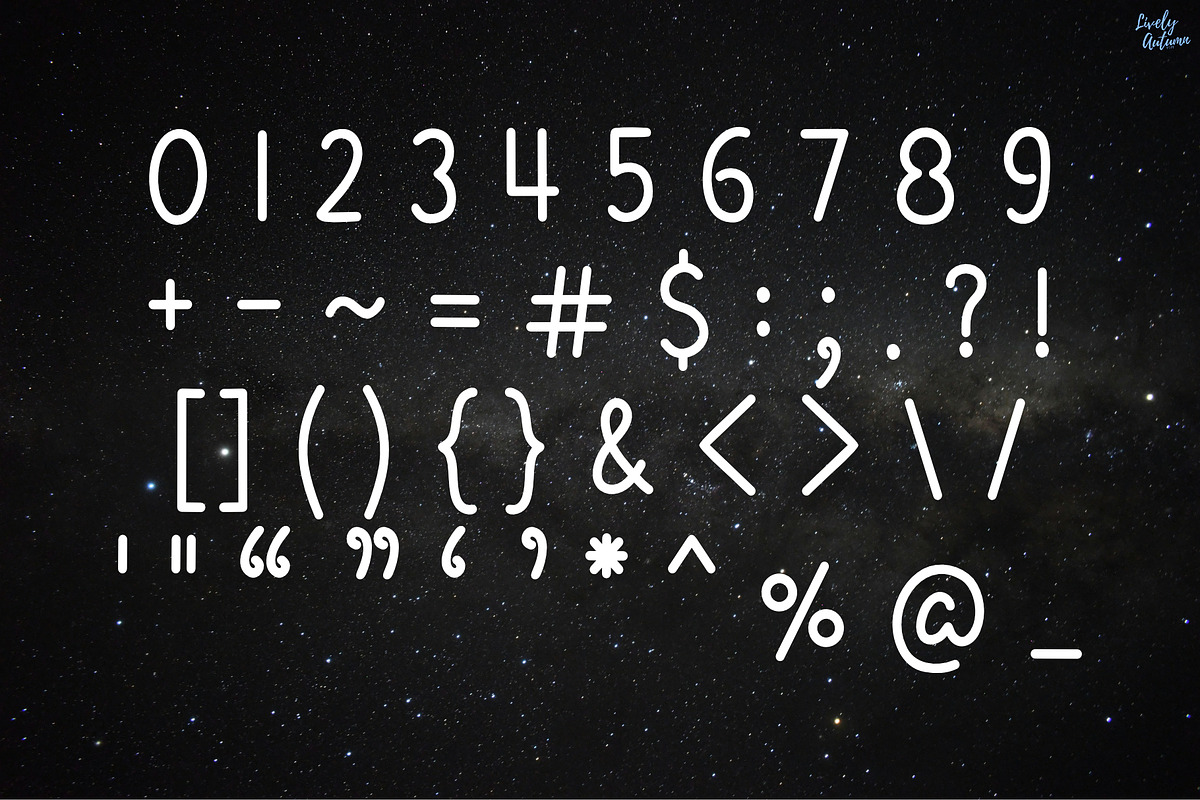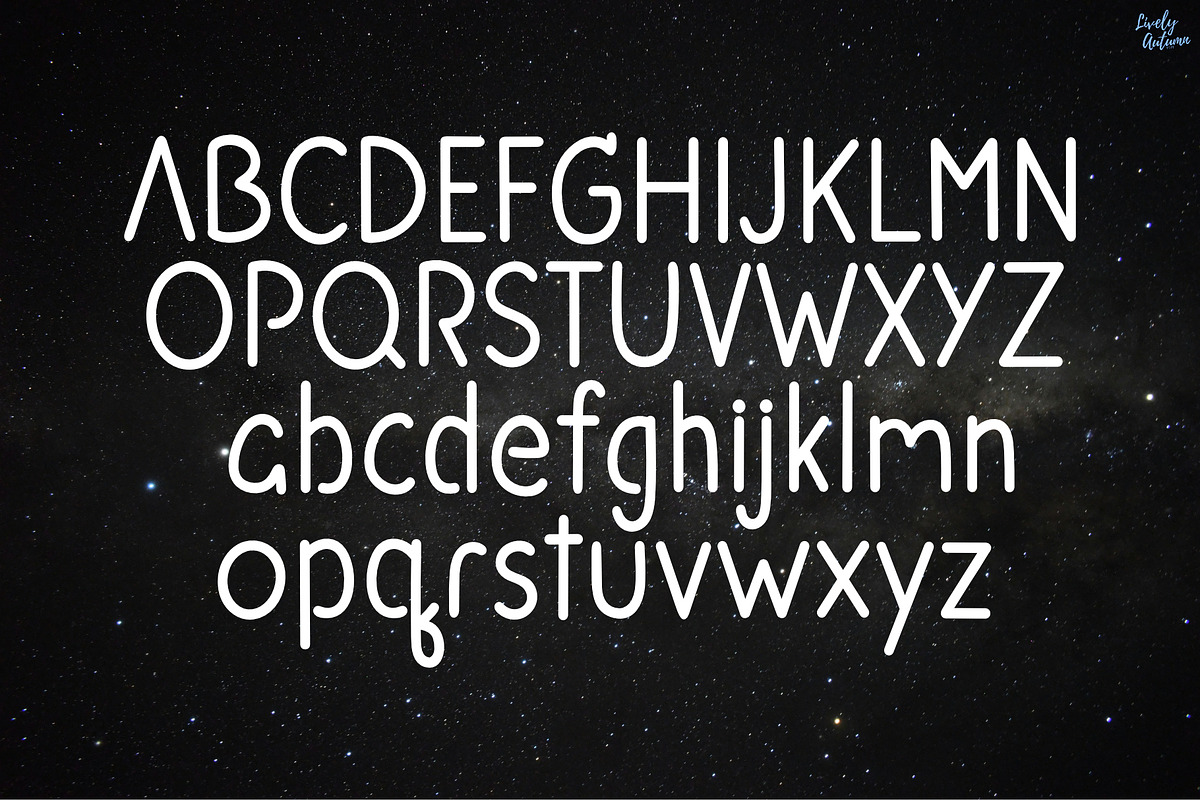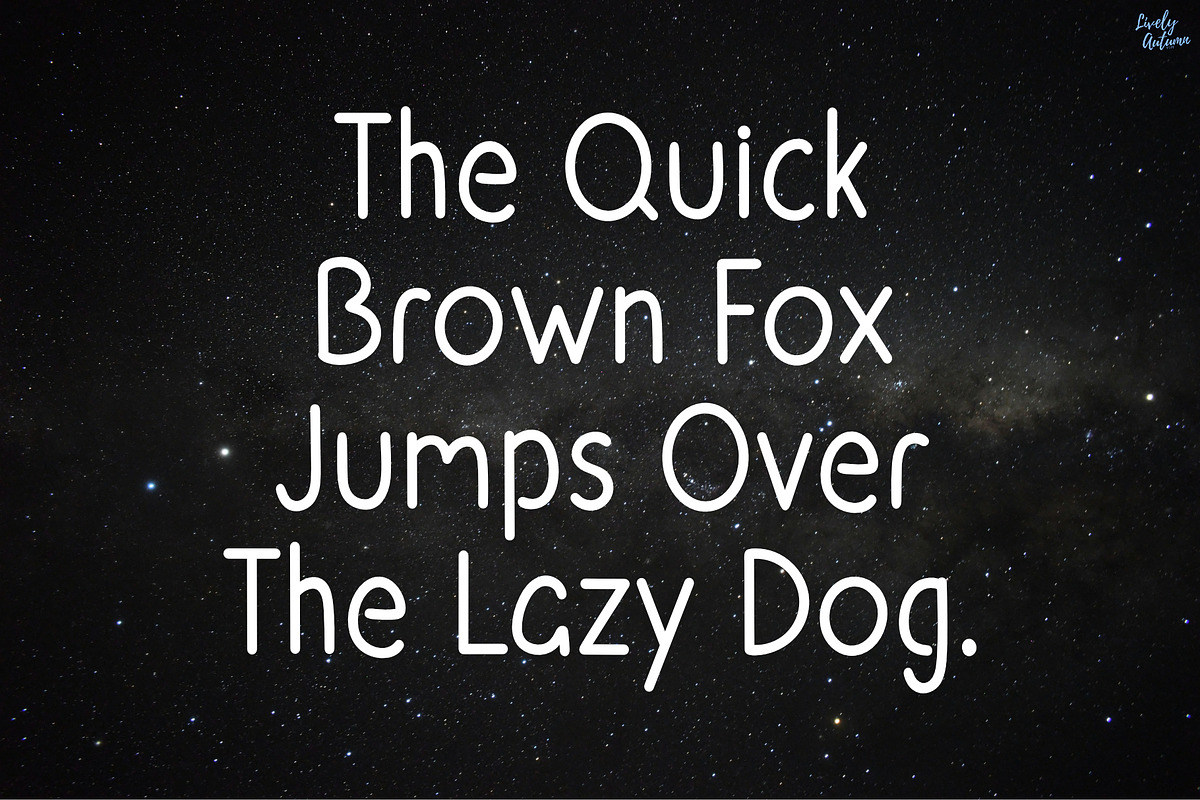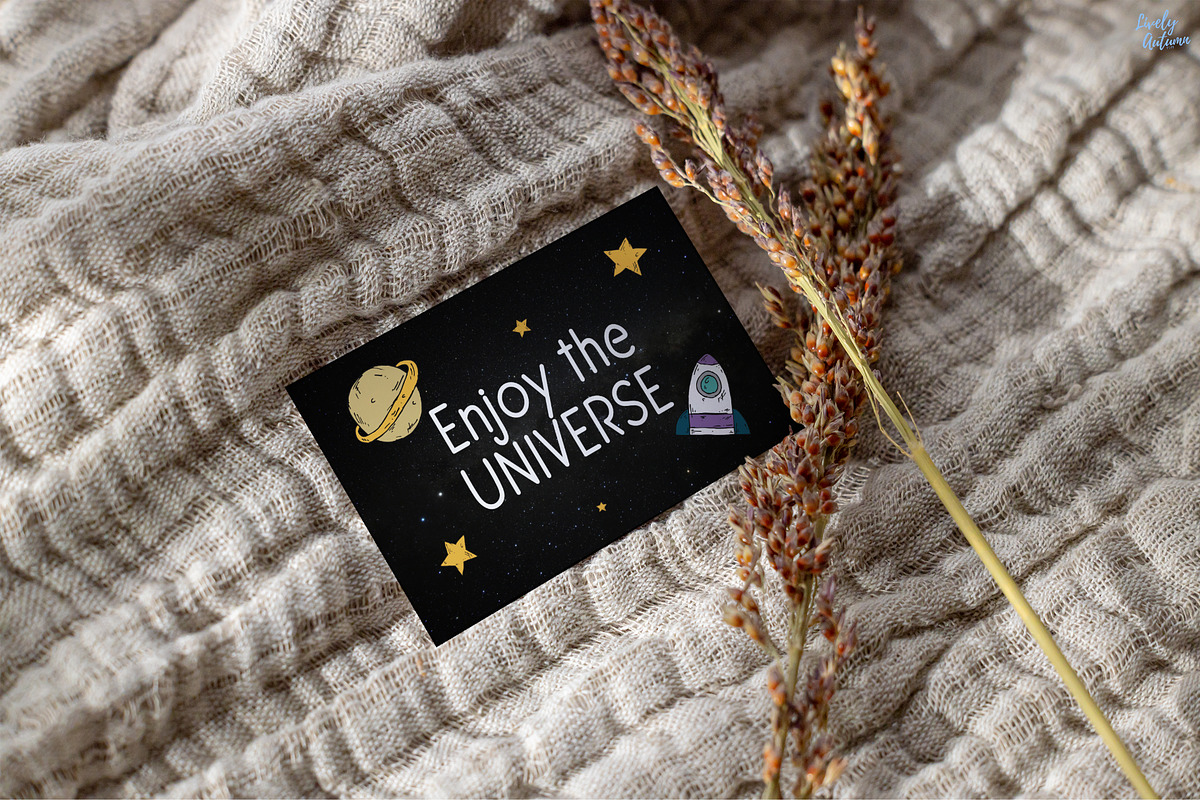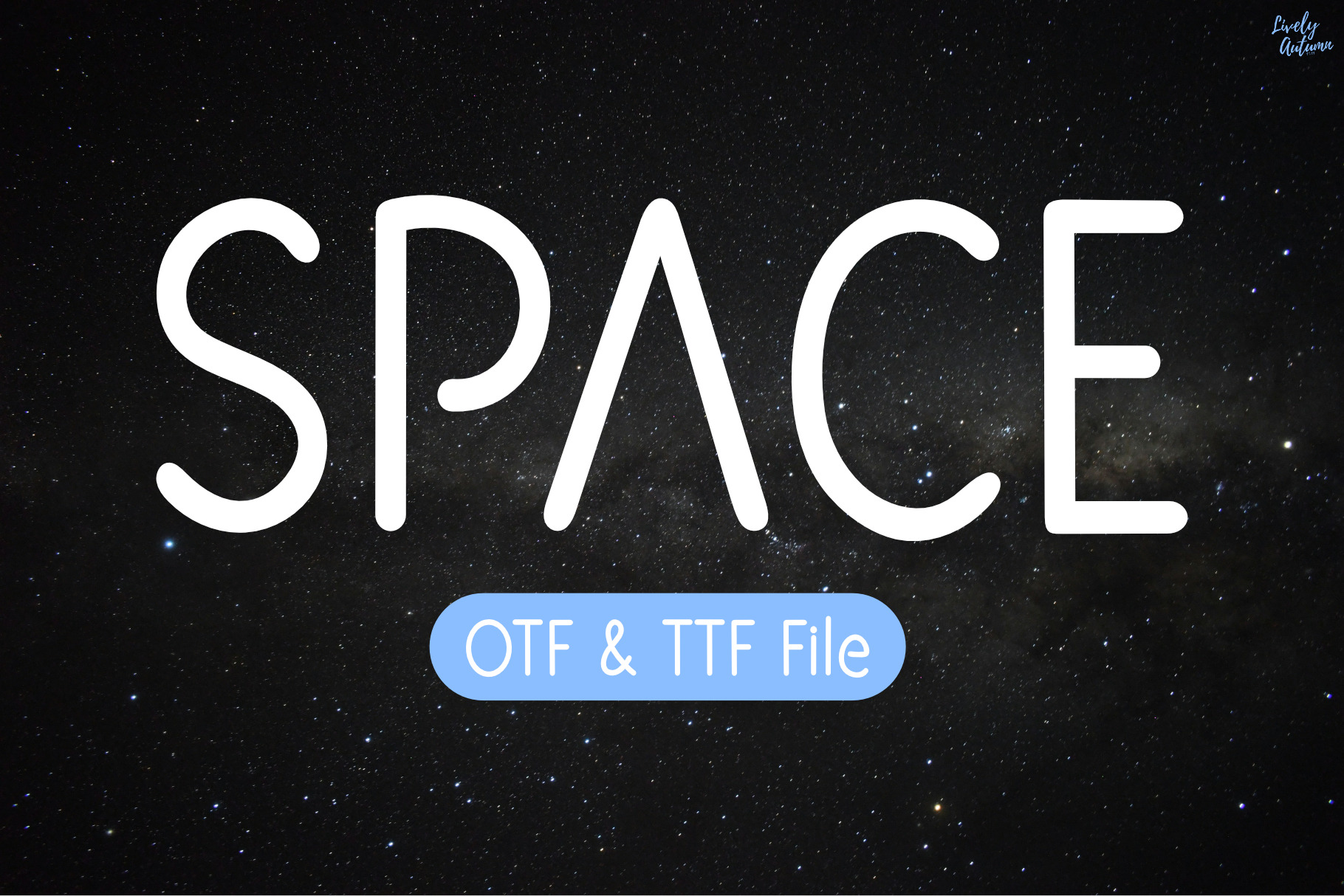
Space | Futuristic Font
Space Font is a sans serif display font with a futuristic theme. Perfect for your personal projects and various projects. From invitations to posters, social media graphics, journals, and much more.
- Font includes: uppercase, lowercase, numbers, and punctuation